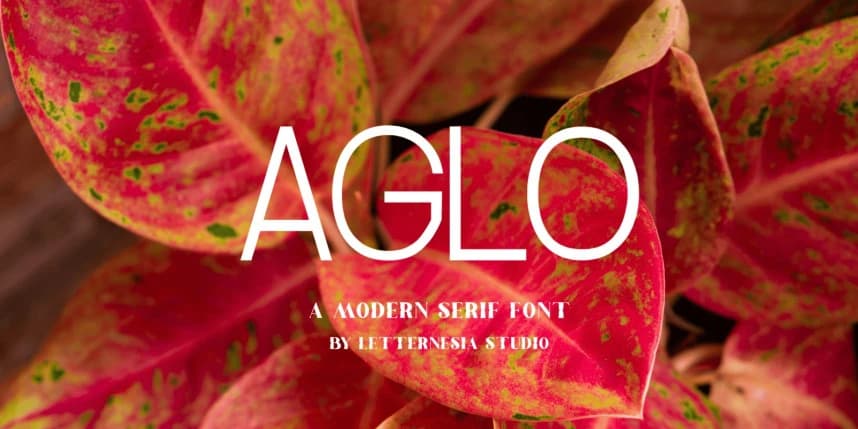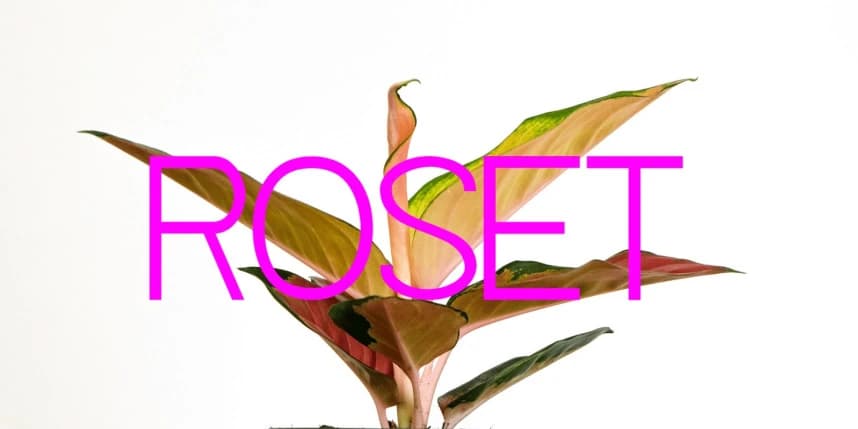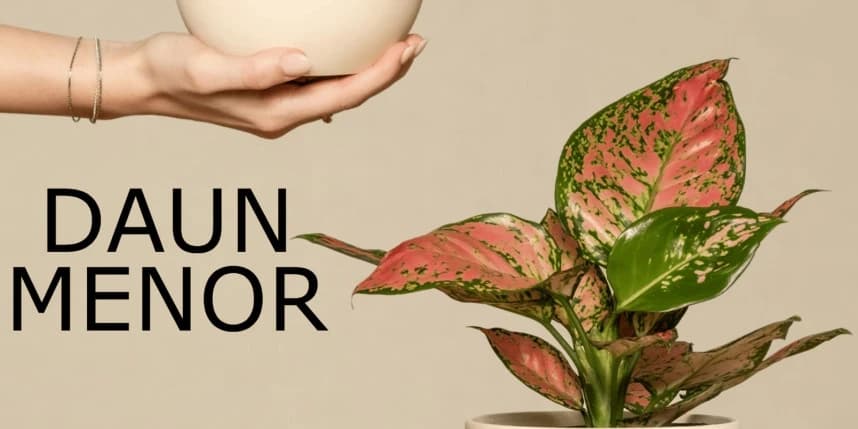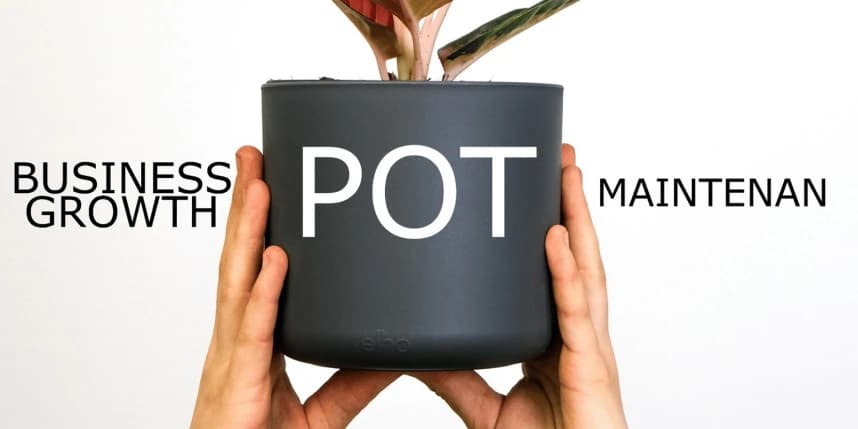
Aglo Font
AGLO Font is a bold and expressive display typeface designed to stand out with confidence and character. Featuring strong letterforms and a modern attitude, AGLO delivers a powerful visual impact that grabs attention instantly.